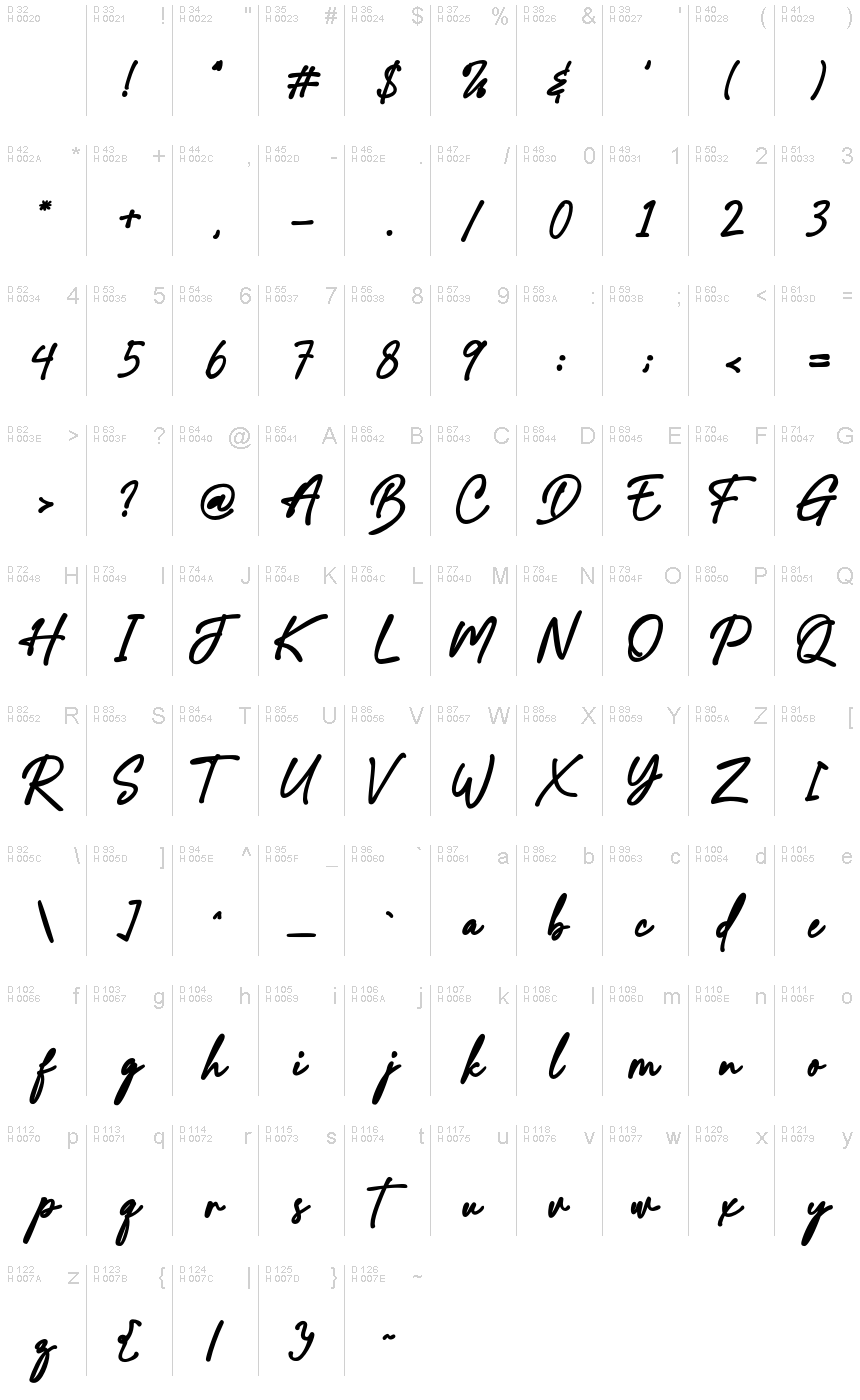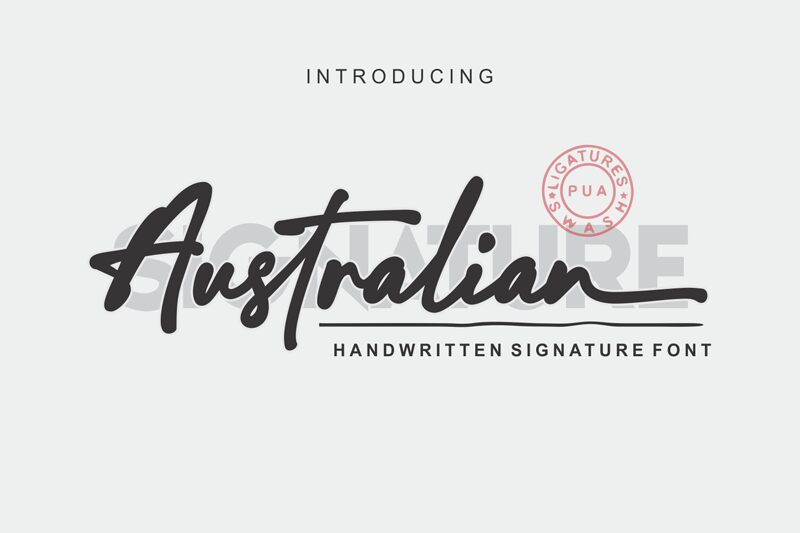
Australian Signature
Australian Signature font, designed by Letternun, exudes a captivating, handwritten charm that blends elegance with a personal touch. Its fluid strokes and varied contrasts create an inviting rhythm, making it feel both approachable and sophisticated. The graceful curves and playfully exaggerated swashes add a sense of informality, while the bold emphasis in certain letters enhances its visual impact.
This font shines in various design contexts, from branding to event invitations, where a warm, personalized aesthetic is desired. Its versatility makes it perfect for conveying heartfelt messages or infusing creative projects with an artisanal flair. Whether crafting a signature logo or designing stylish stationery, Australian Signature effortlessly elevates any text with its distinct character and allure.